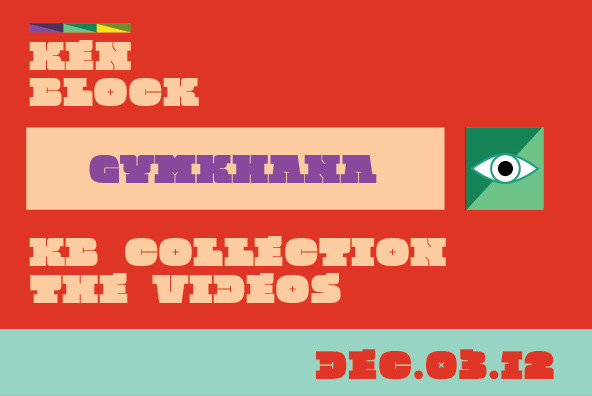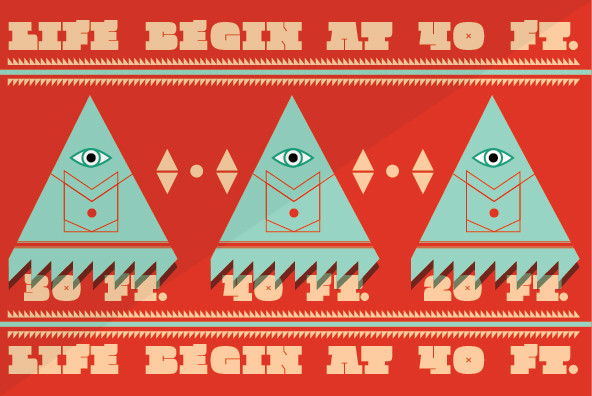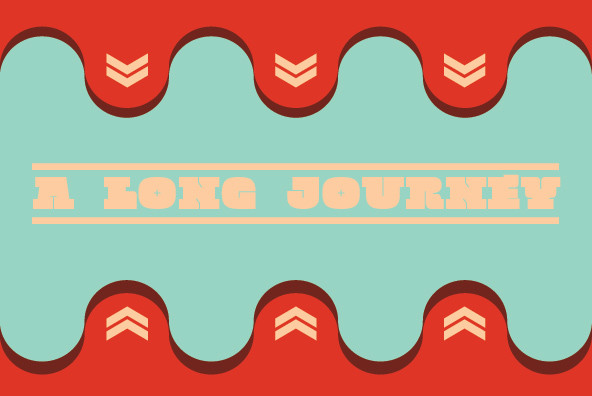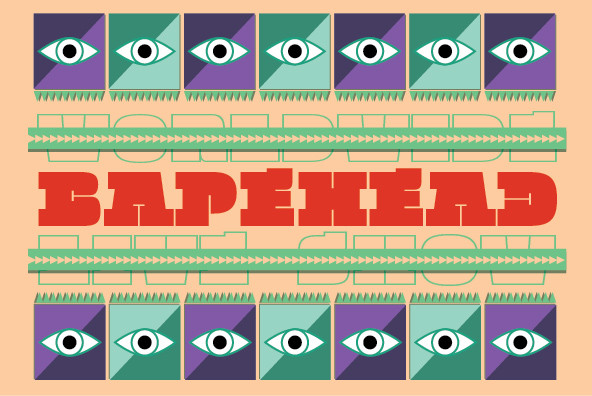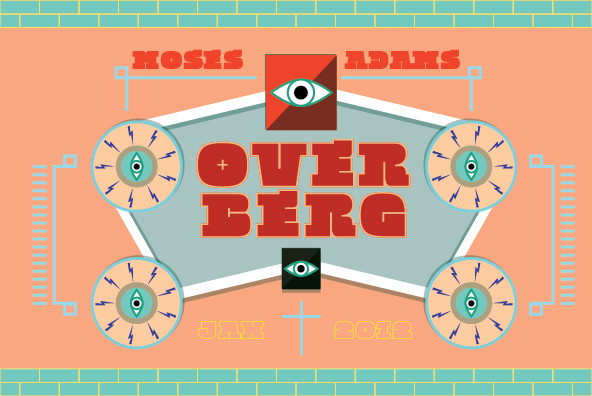
Quadratish Serif is an interesting ultra black type design with serif, that contains both solid and outlined lettering styles. A third design style can be created when combining the two styles over top of each other.